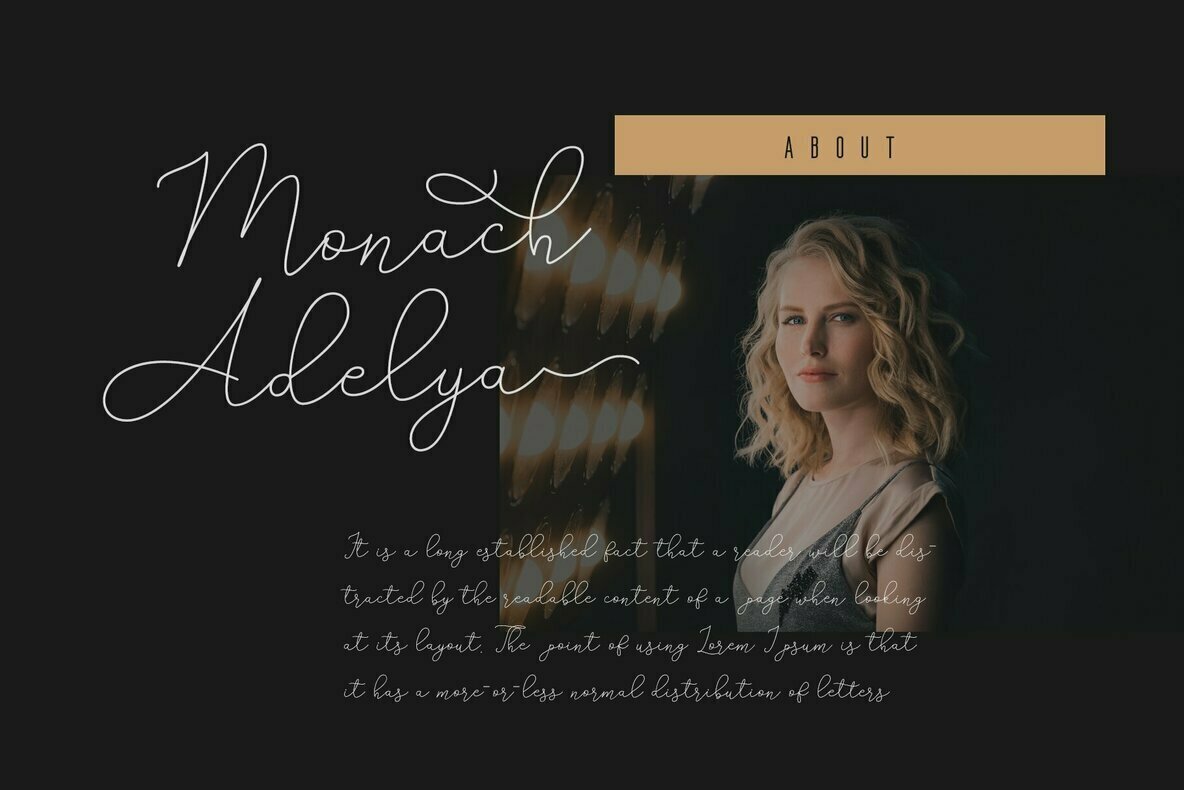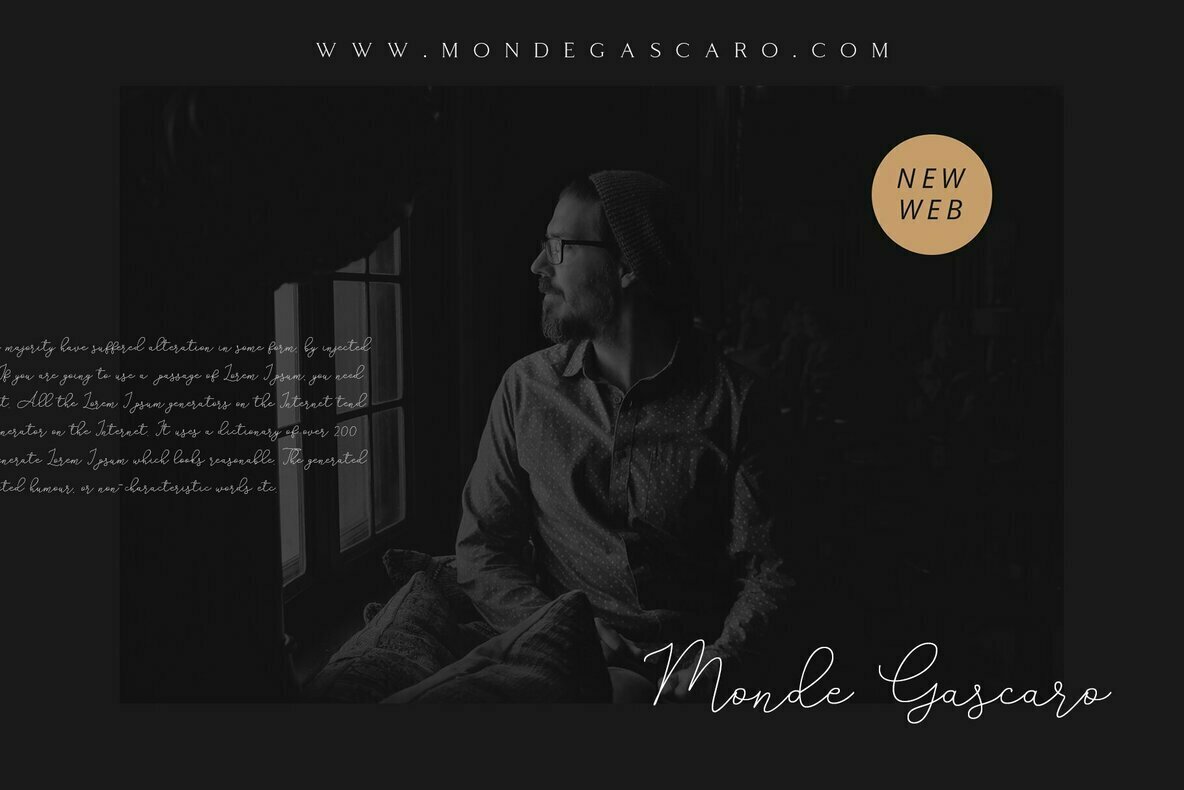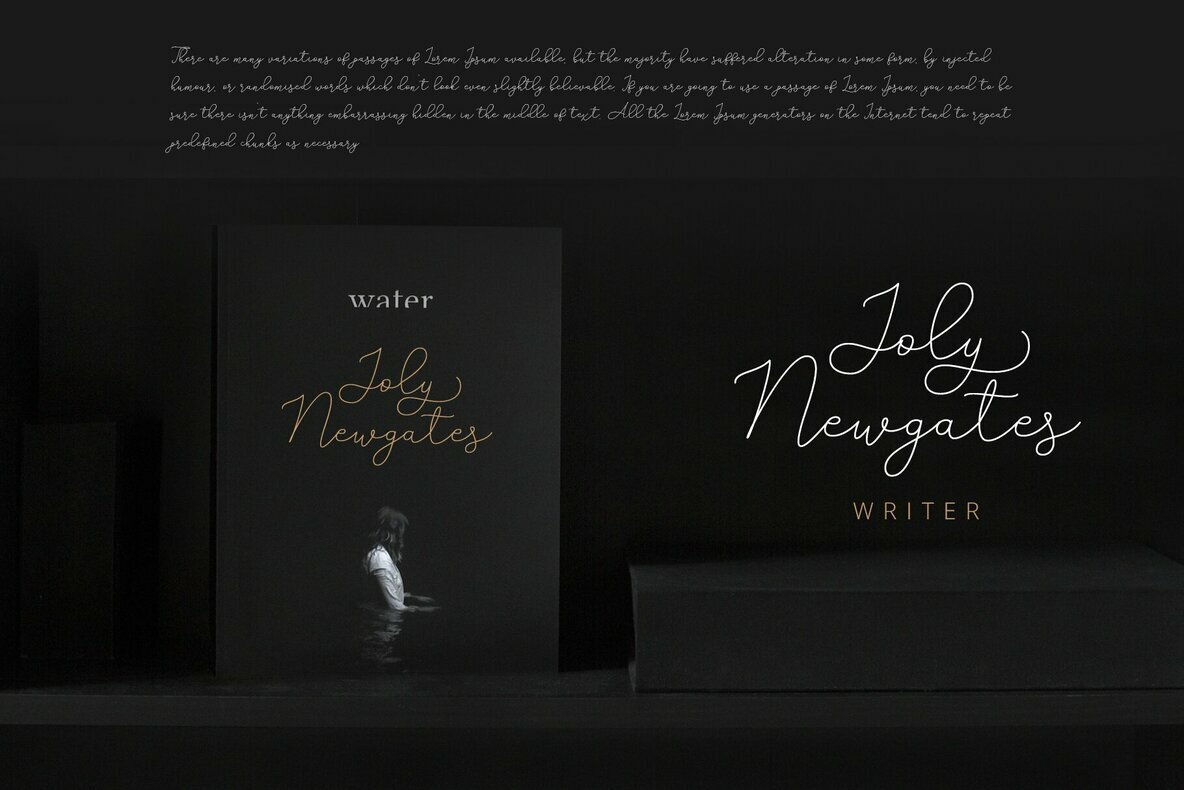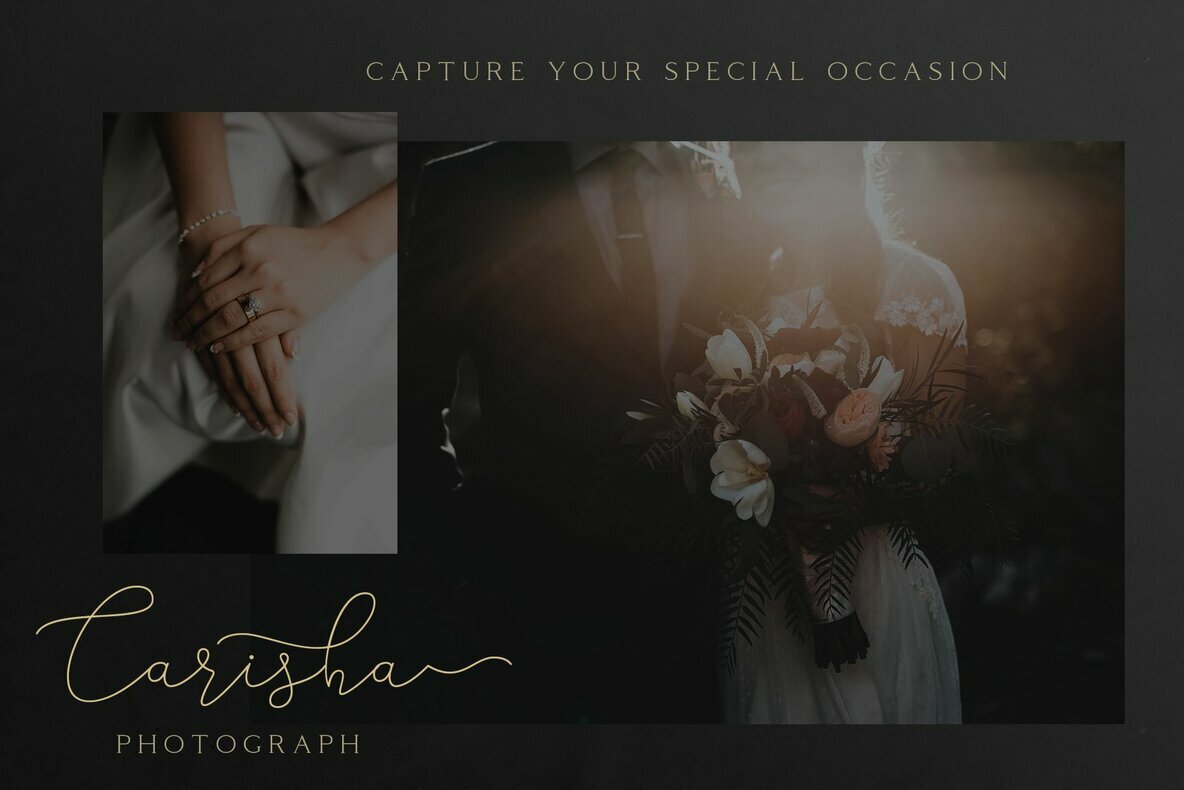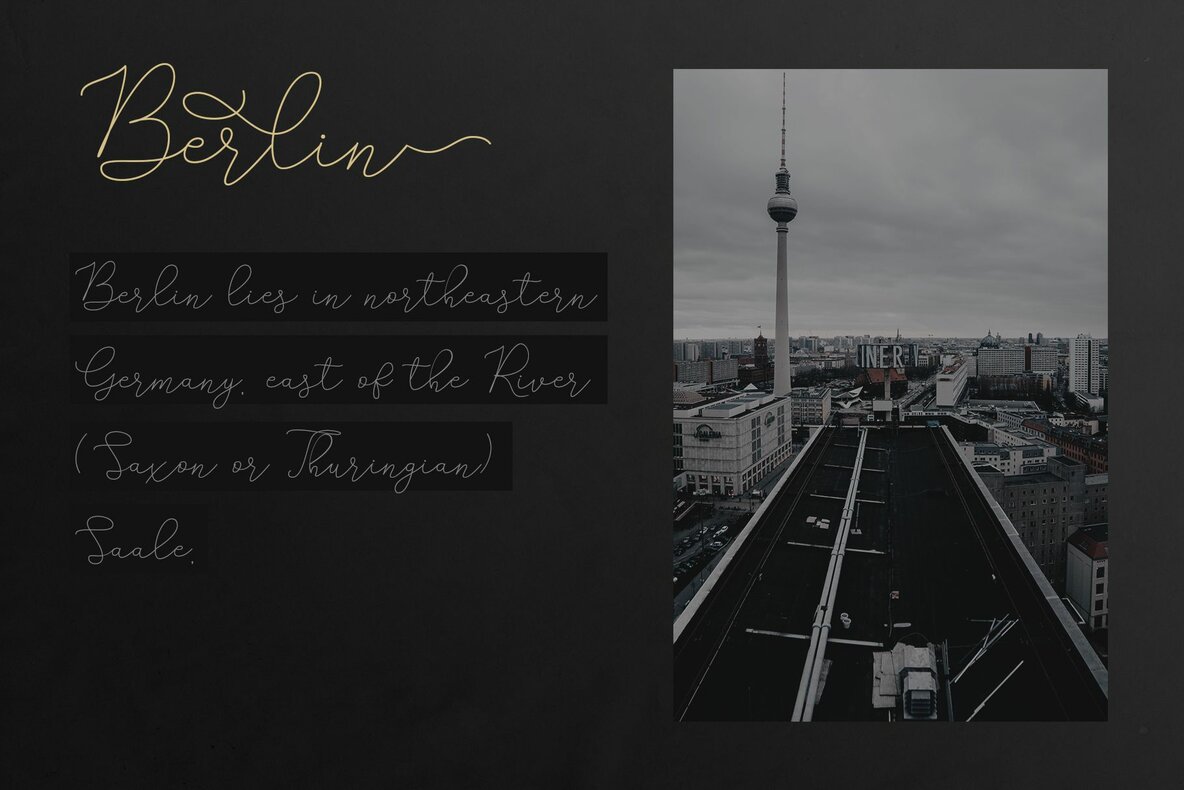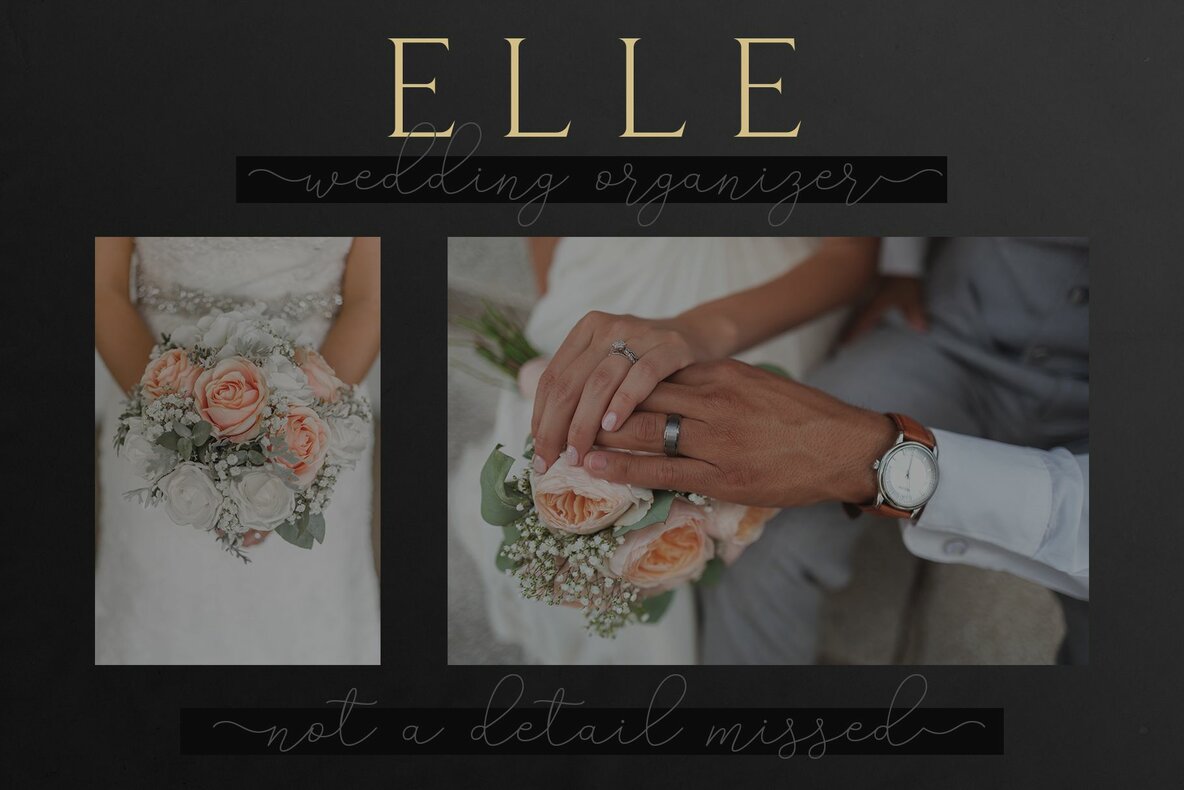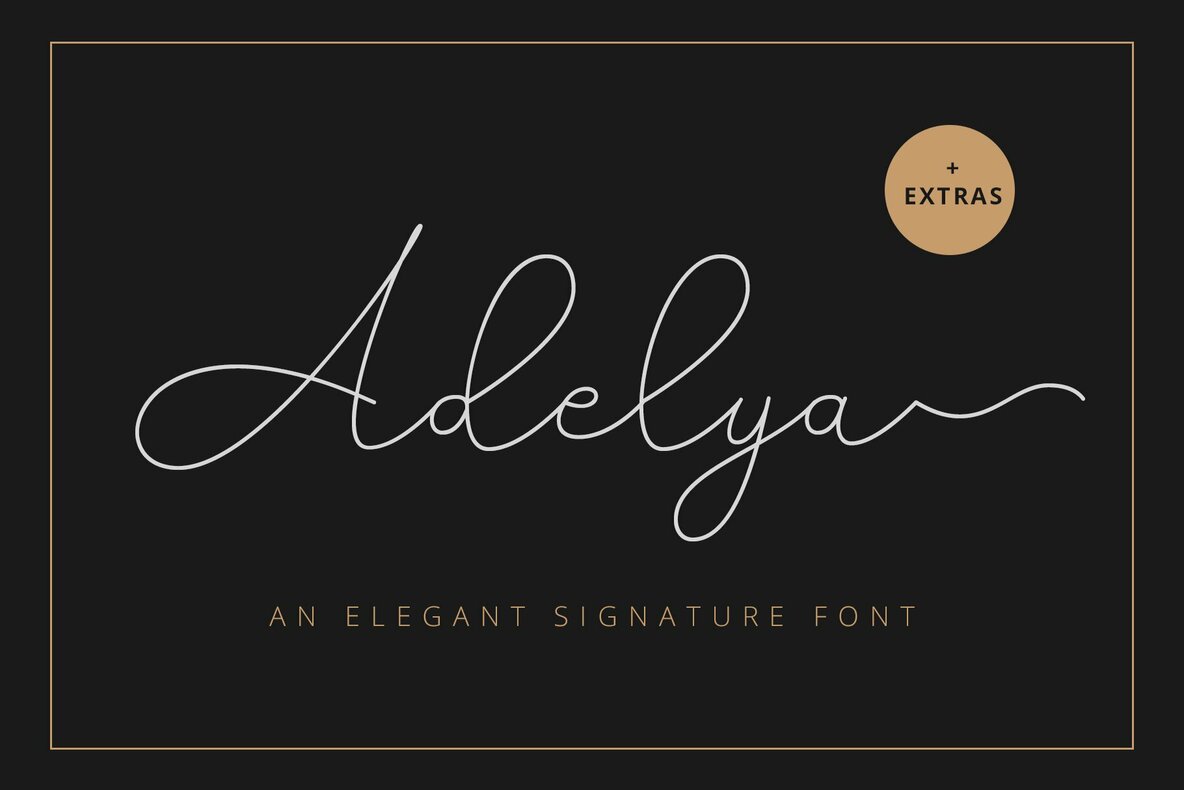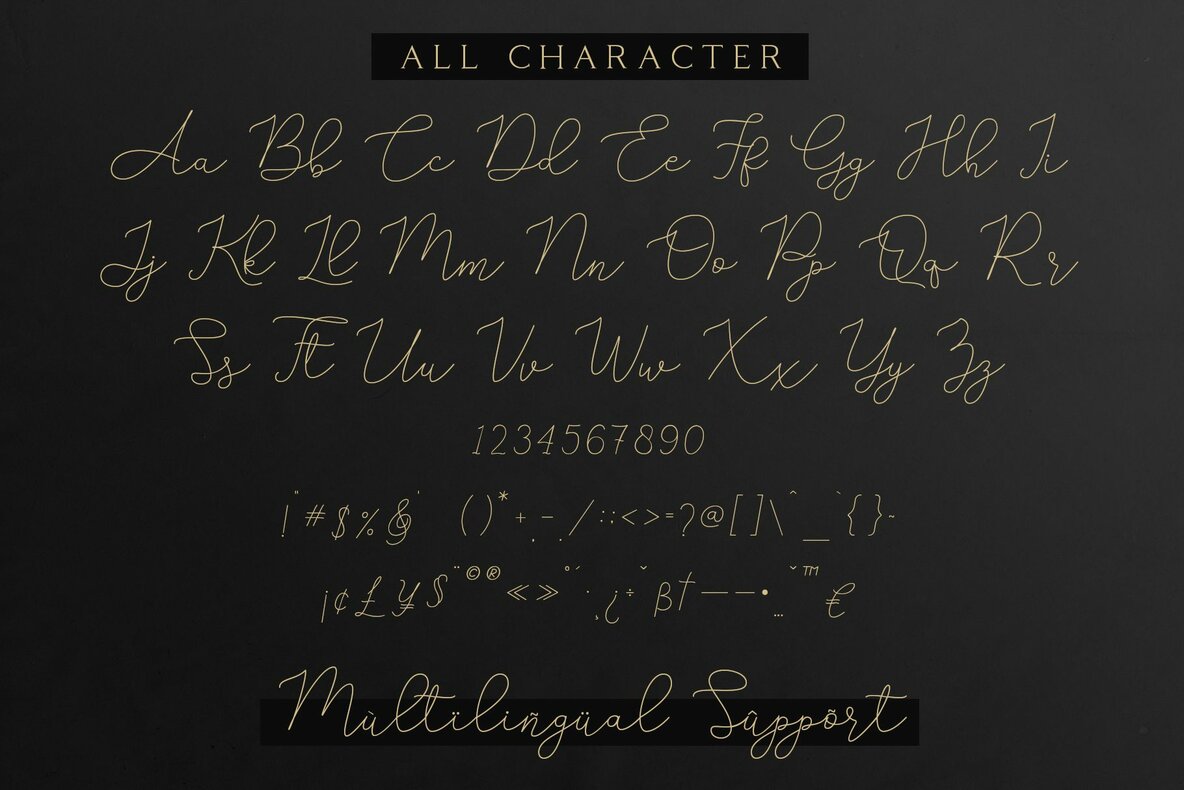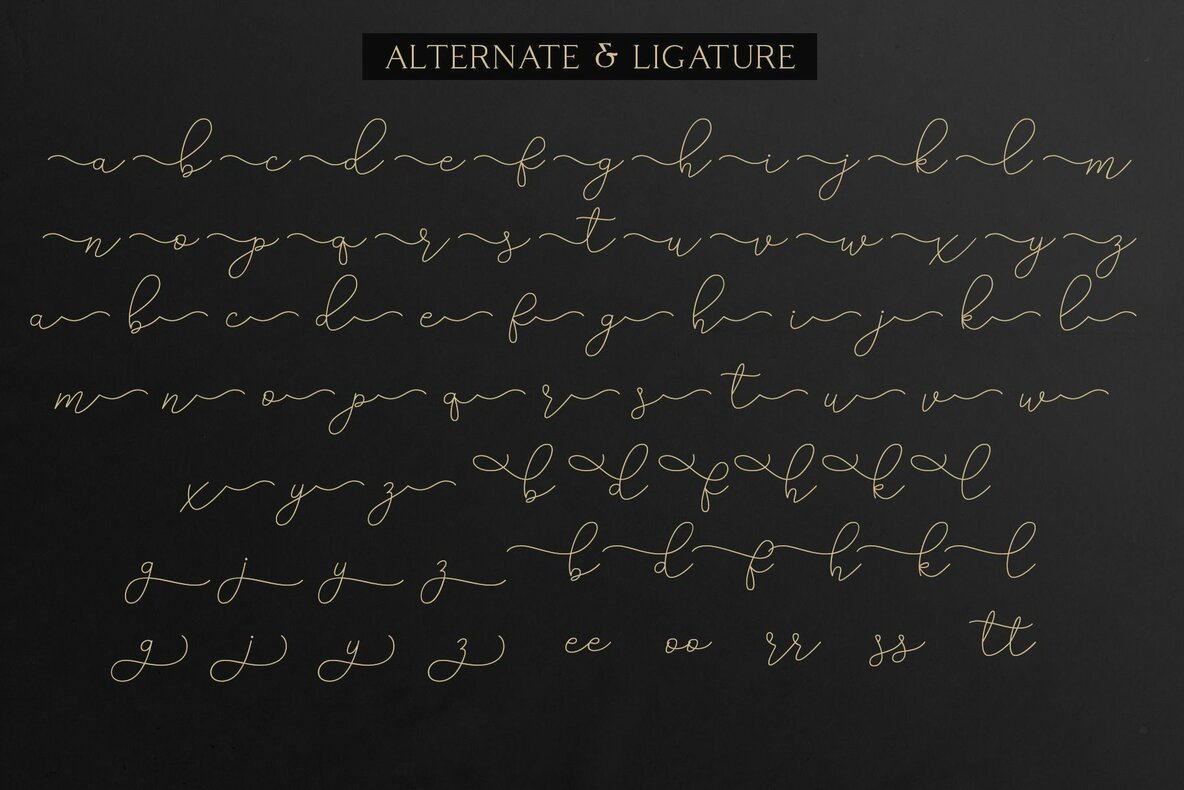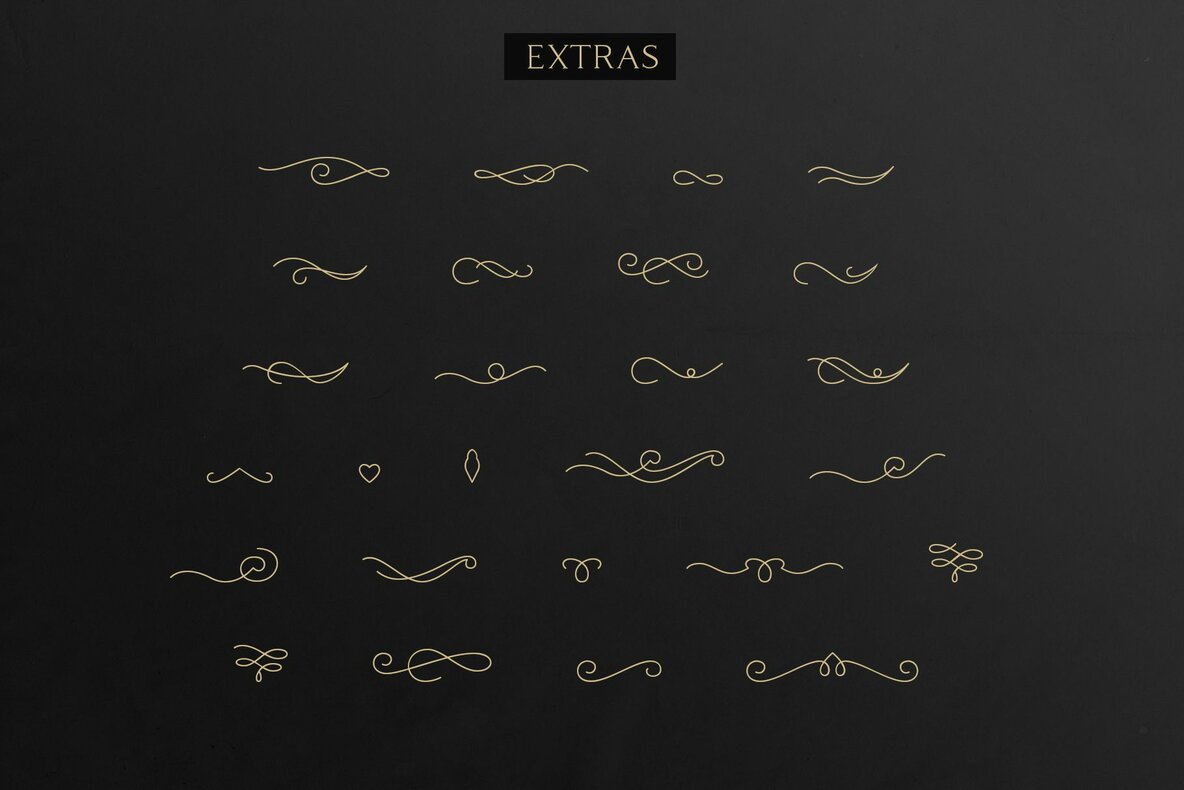
Adelya Font
Adelya
Adelya by Craft Supply Co. is a monoline script font that embodies elegance and charm. Its versatile two-style design, powered by OpenType Contextual Alternates, allows for seamless letter transitions, offering a handwritten feel that enhances any creative project. From print materials to digital designs, Adelya adds a sophisticated touch that effortlessly elevates the visual appeal. Whether crafting greeting cards, brand identities, book titles, or wedding invitations, Adelya provides a set of stylistic alternates that ensures your project remains unique and modern. This font invites creativity, supporting diverse applications with its flexible use.Adelya: An Elegant Signature Typeface